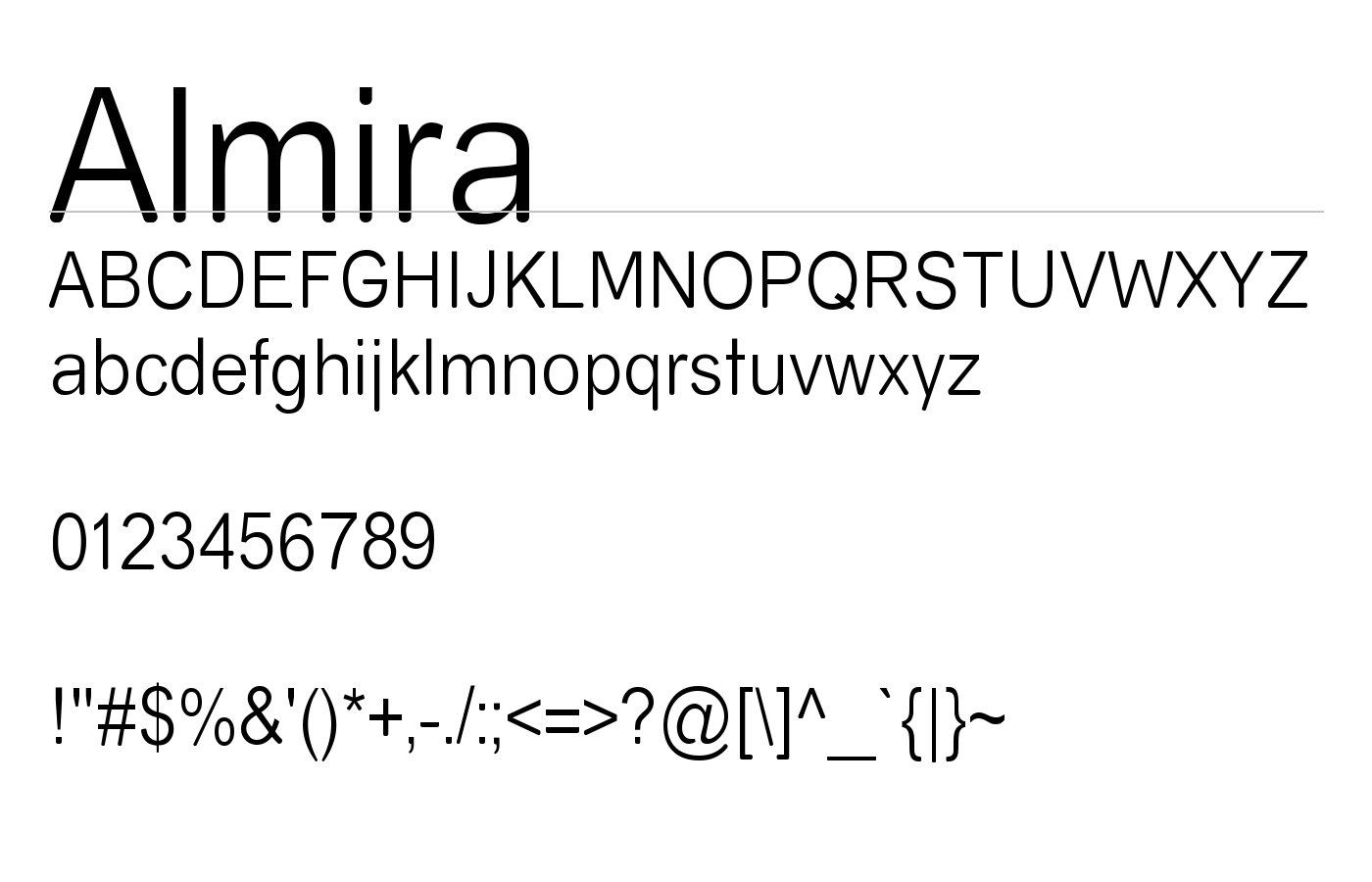
Almira is a clean, modern sans serif font with a light to regular weight and a slightly condensed width, offering a sleek and elegant appearance. Its tall x-height and low contrast strokes contribute to excellent readability, making it ideal for both display and body text in editorial design, websites, and branding projects. With its minimalist style and straightforward letterforms, Almira conveys professionalism and clarity while remaining approachable and versatile.
Almira Font
About Almira Font
| Designer | MEHMET ABACI |